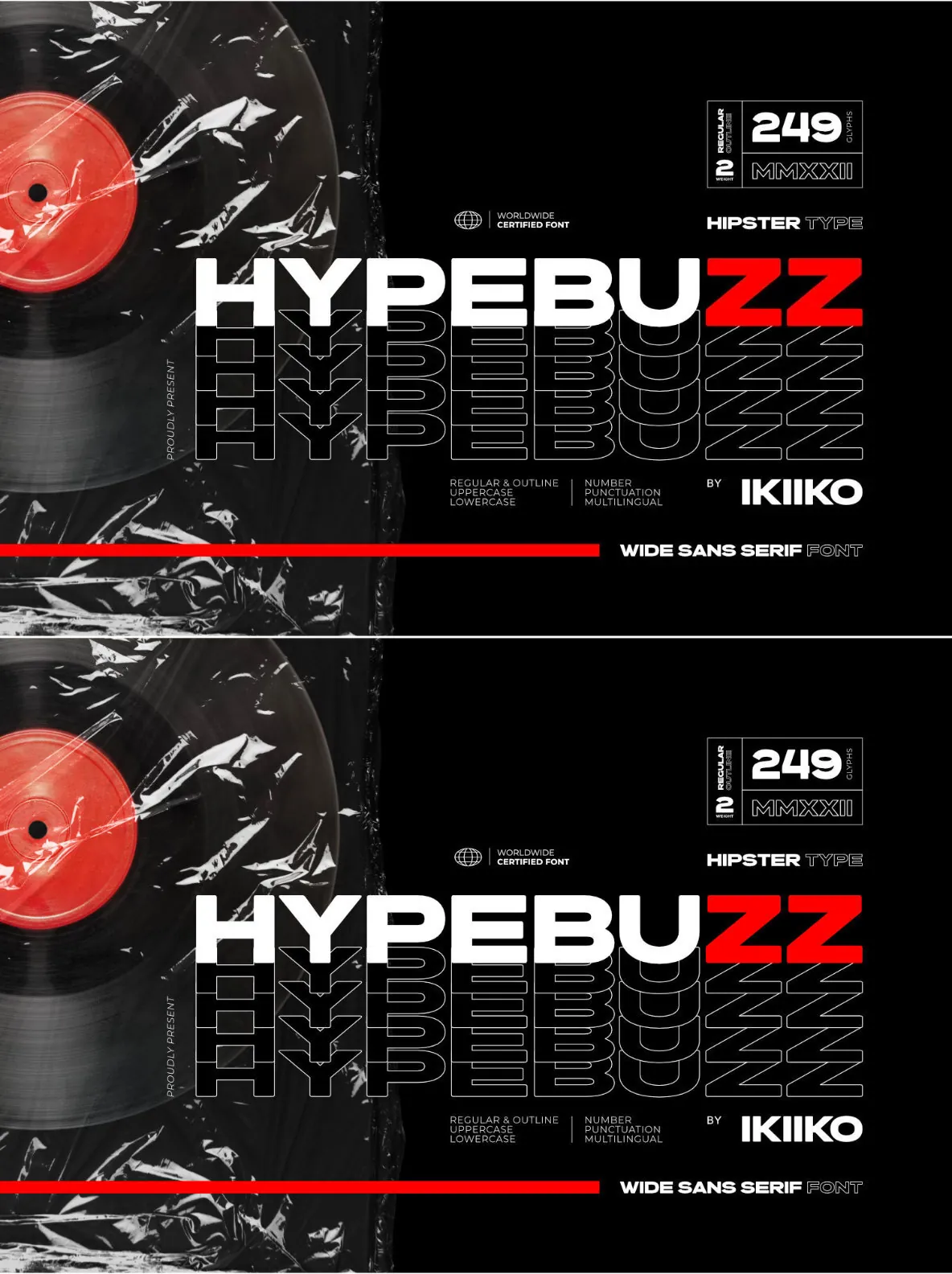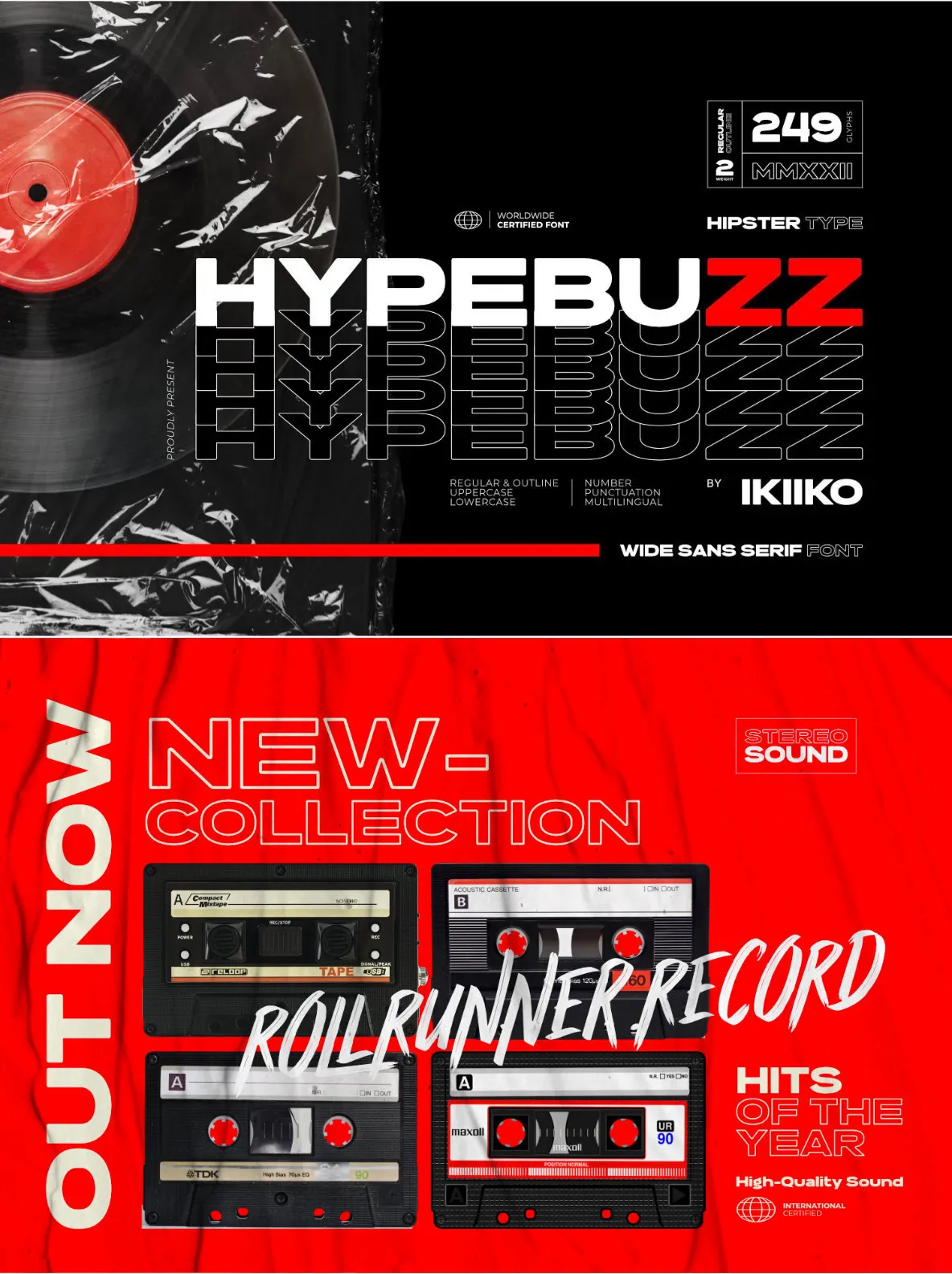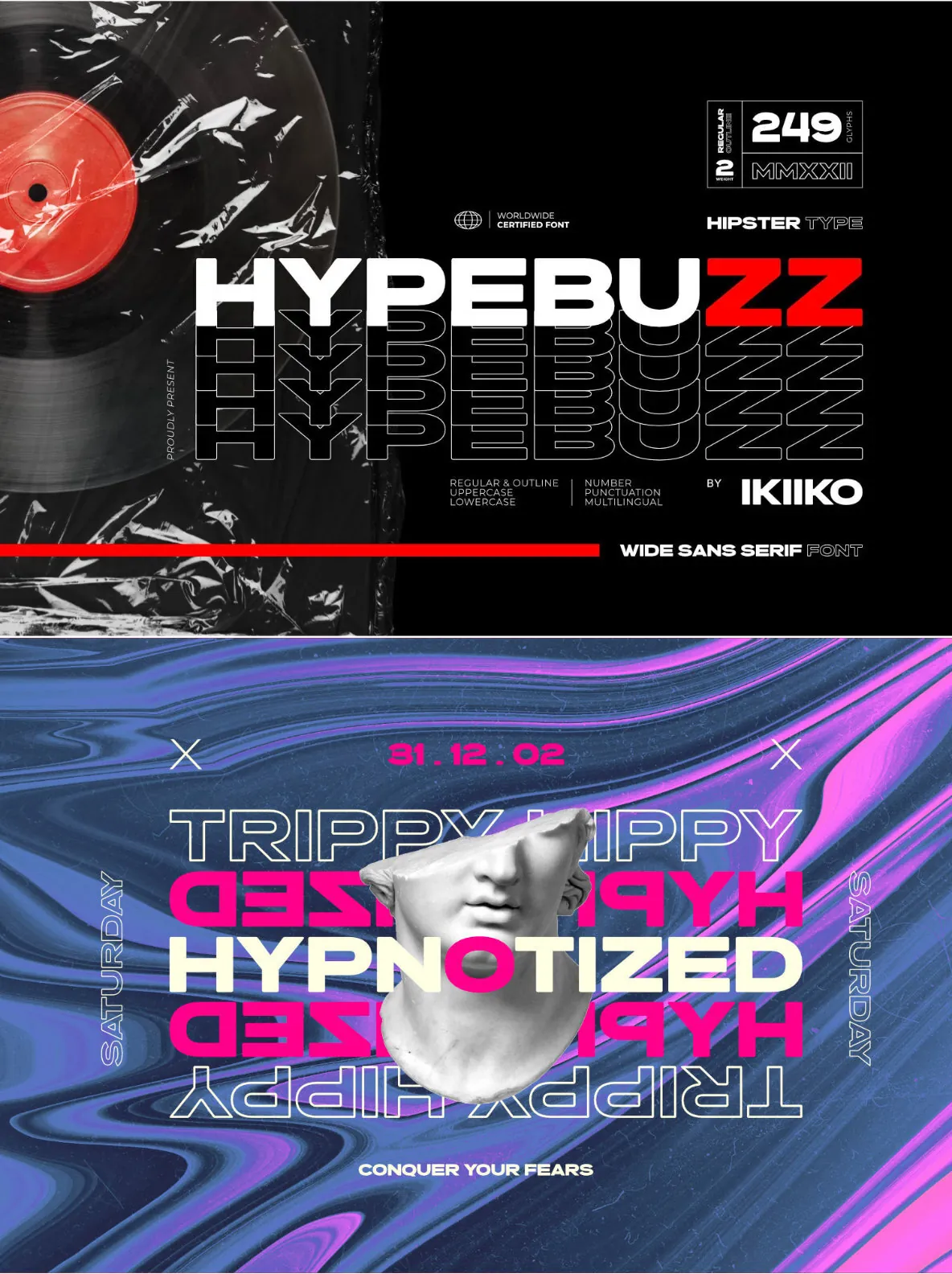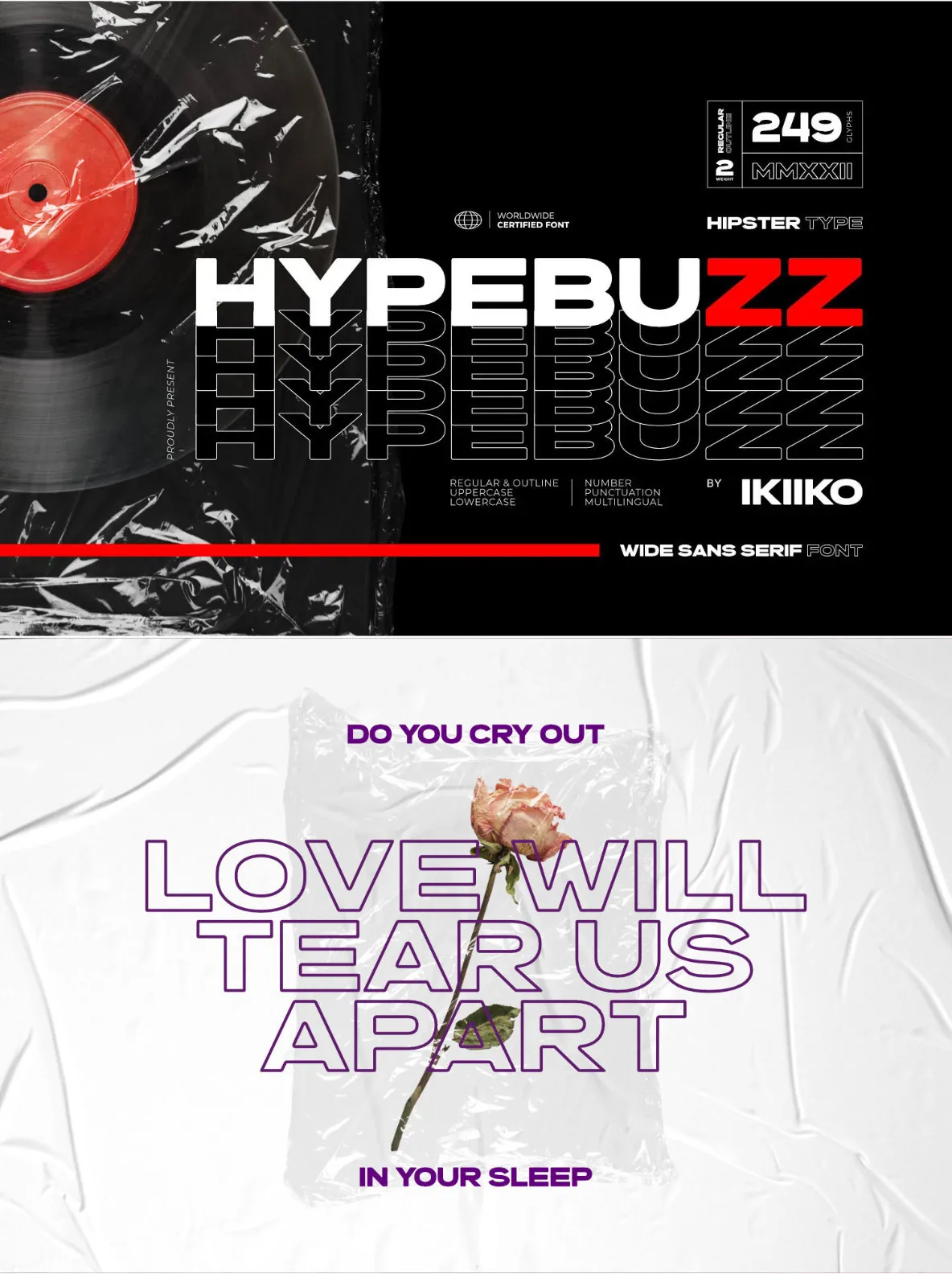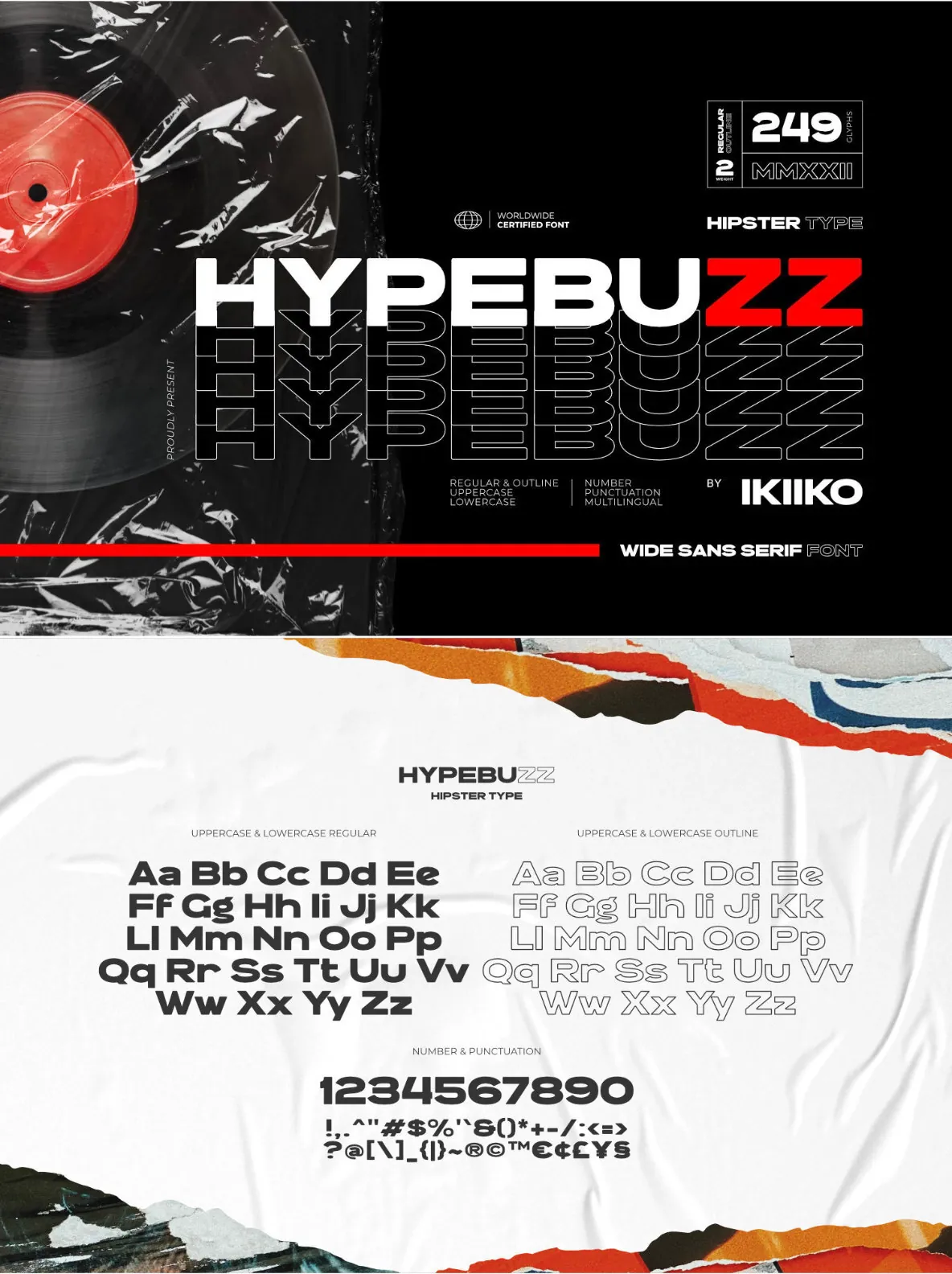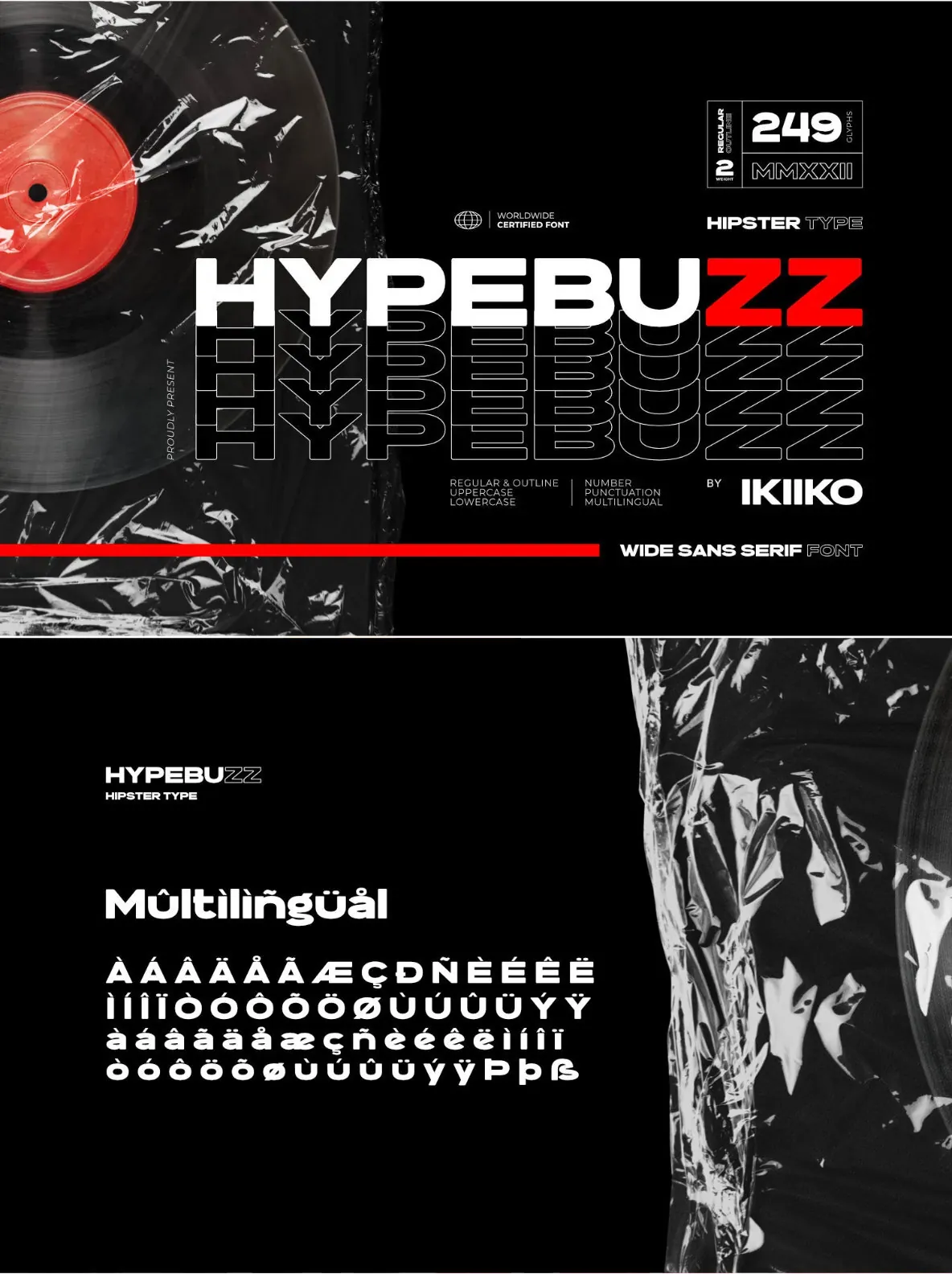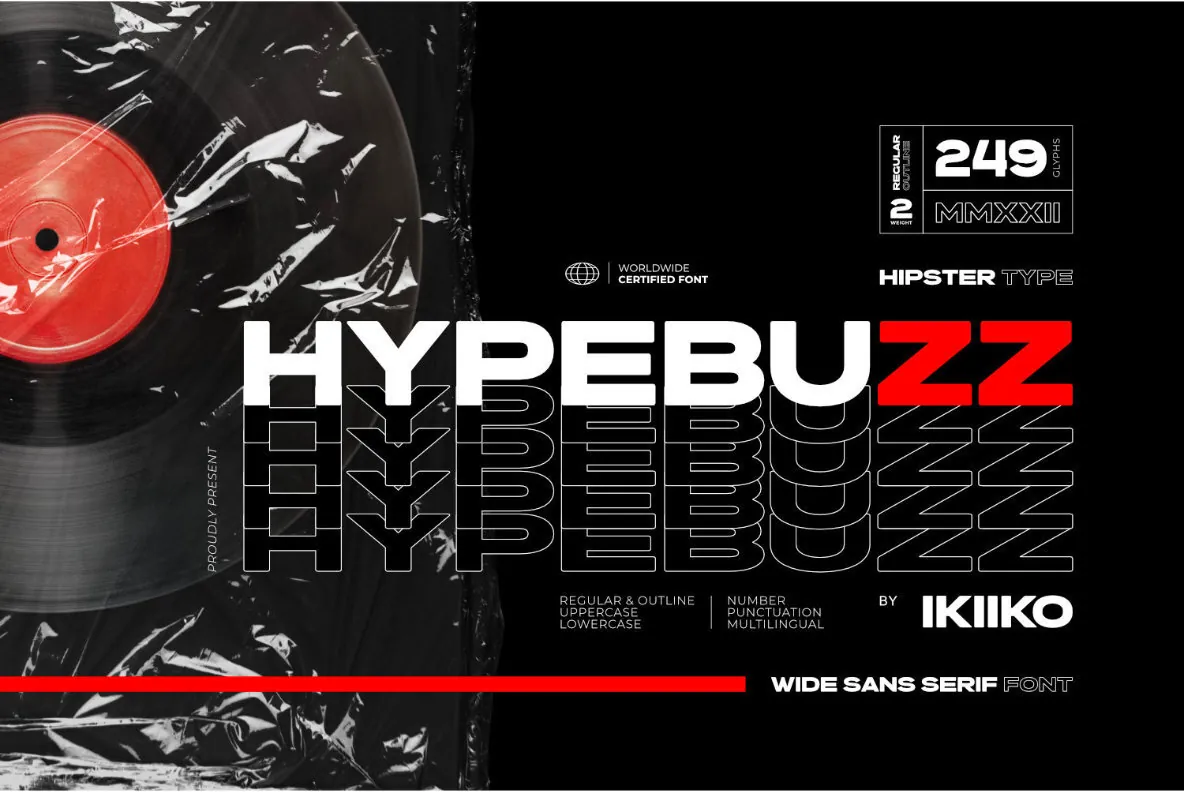
Hypebuzz Font
Hypebuzz is an urban sans serif font with a distinctive wide shape. This type has a character of streetwear vibes, hip-hop, youth, urban culture, etc. Hypebuzz had a 2 types of letters allows us to explore the text with creativity. This type is very suitable for making a poster, magazine layout, brand logo, sleeve cover, party flyer, quotes, or simply as a stylish text overlay to any background image.
:: 2 Weights : Regular & Outline
:: Uppercase & Lowercase
:: Numbers & Punctuation
:: Multilingual Support